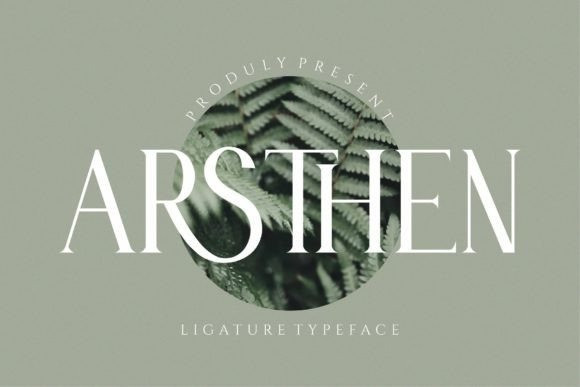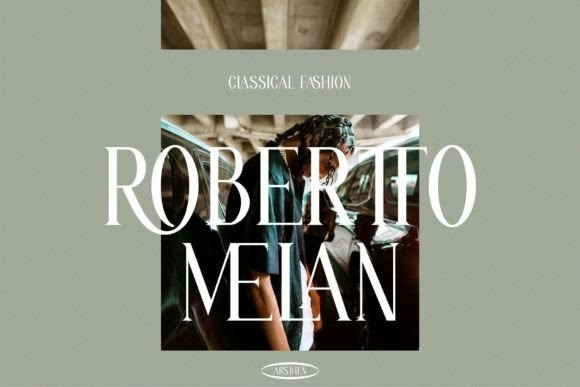
Arsthen Font
Arsthen is a classy and elegant serif font. Stylish and trendy, this font is perfect for a wide spectrum of applications such as branding, logos, editorial designs, labels, social media posts, or anything that needs a sophisticated look. This font is PUA encoded which means you can access all of the glyphs and ligatures with ease!